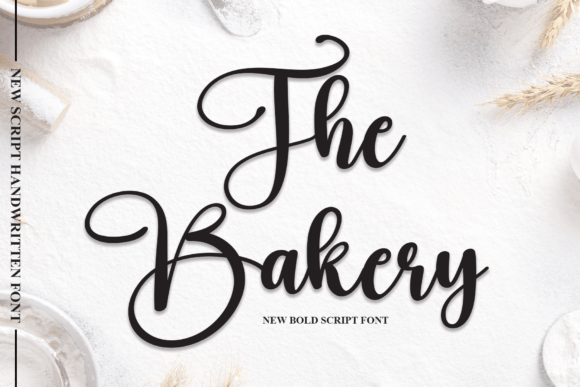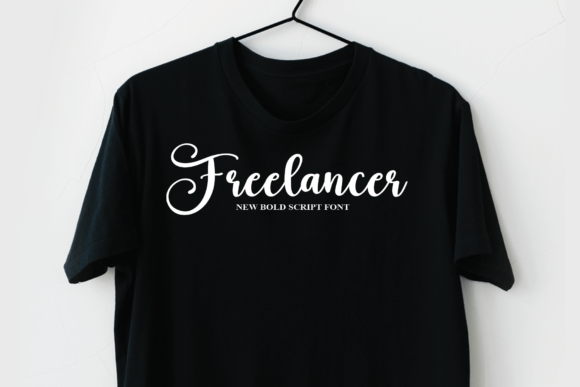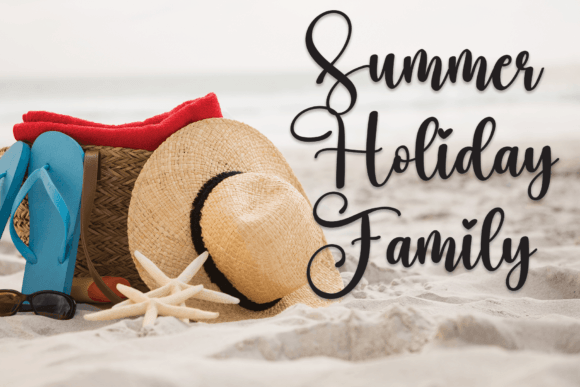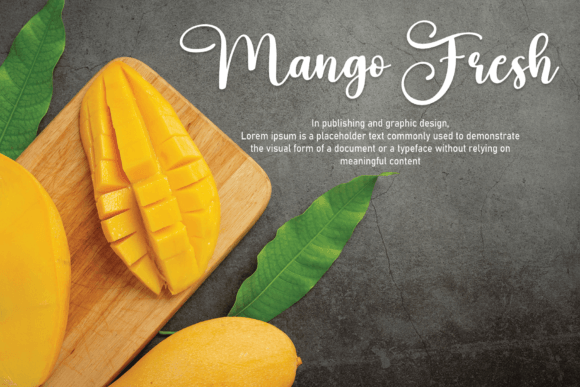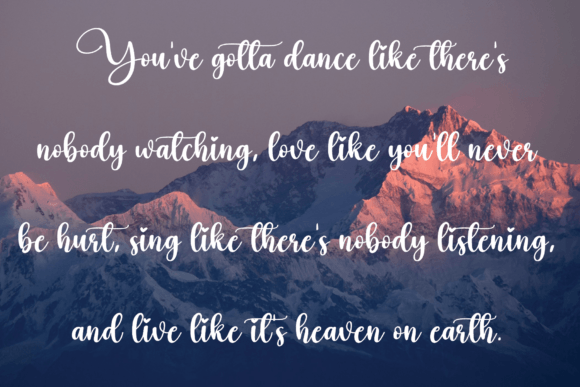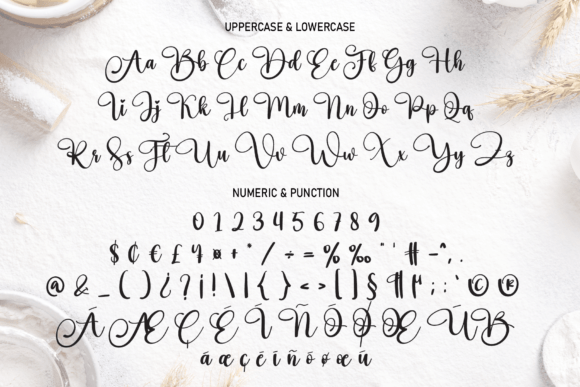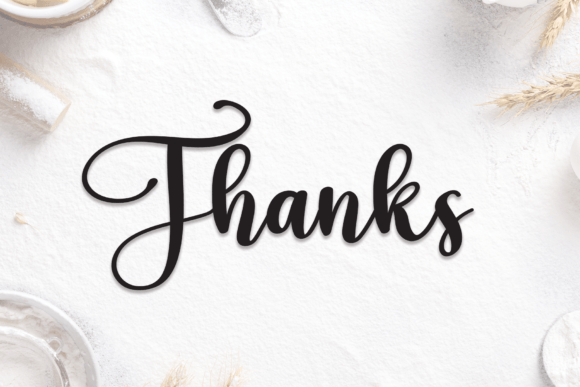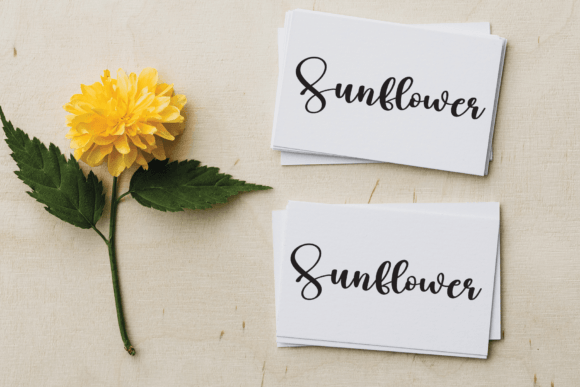
The Bakery Font
About The Bakery Font
“The Bakery” is a robust font specifically crafted to command attention and bring a bold feel to any project it graces. This powerful typeface is designed to add a vibrant touch, particularly well-suited for projects inspired by the dynamic world of sports.
The strength and robustness of “The Bakery” make it an ideal choice for a variety of sports-related designs. Whether you’re working on team branding, jersey designs, league logos, sports documentaries, film titles, or sports-themed posters, this font injects a sense of energy and boldness that aligns perfectly with the spirit of the athletic world.
In movie or documentary projects, “The Bakery” serves as a powerful tool for creating impactful titles and headlines. Its bold and vibrant appearance ensures that your titles grab the viewer’s attention, setting the tone for the content that follows.
For logos and branding in the sports industry, “The Bakery” adds a touch of dynamism and strength. The font’s bold and assertive presence makes it suitable for conveying the competitive spirit and power associated with sports teams and athletic events.
In the realm of gaming and book covers, this font becomes a statement piece. Its bold and impactful design contributes to creating eye-catching titles and headlines that resonate with the excitement and energy often associated with gaming and thrilling narratives.
“The Bakery” stands out as a versatile choice for a wide range of projects that demand a bold and vibrant typographic expression. Its robust characteristics make it suitable for applications where a strong visual impact is desired, making it a go-to font for designers looking to infuse their creations with a sense of vigor and power. Whether you’re working on print or digital media, “The Bakery” is ready to amplify the boldness of your designs and capture the attention of your audience.